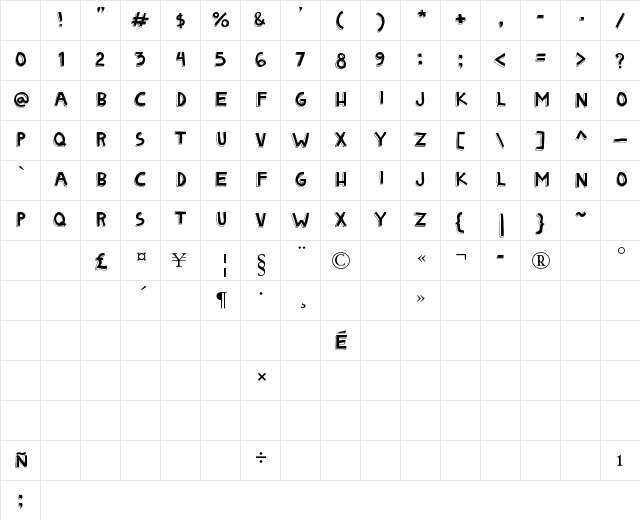
Complete Matryoshka Regular glyph index. Displaying only characters natively supported by Matryoshka Regular font.
Matryoshka is a composed and adaptable typeface that performs quietly and consistently across a wide range of design contexts.
Who designed the Matryoshka Regular font?